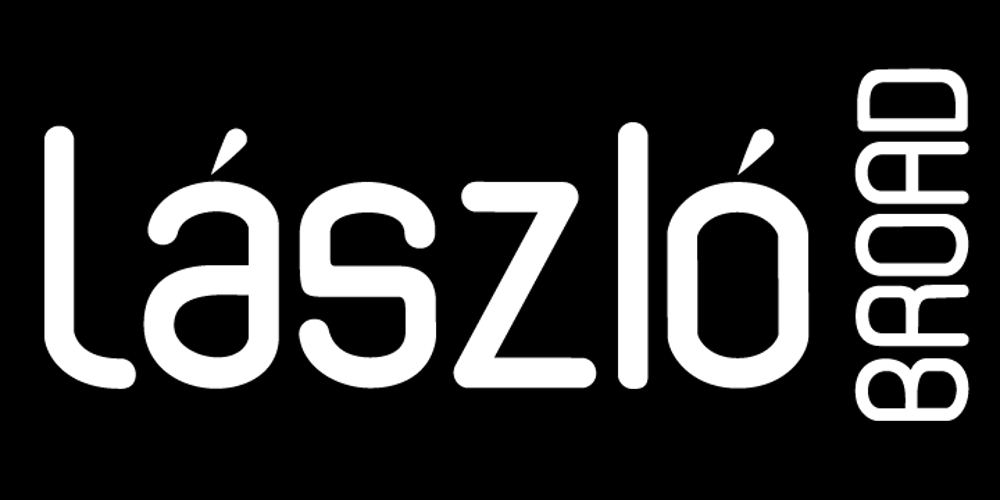
László Font Family was designed by Randy Harris and published by Just My Type. László contains 5 styles and family package options. We count three inspirations for the László font family. The upper case was inspired by Yomar Augusto’s amazing font Unity, used on last year’s German World Cup Team jerseys; the lower case from a few letters a poster for a Bauhaus show. The name László is an homage to László Moholy-Nagy, peerless Bauhaus designer and teacher. The László type family is stripped down to the typographic core, lean, clean and definitely machined, at home in either a formal or casual setting, i.e. you can take László anywhere. Inspired by watching the World Cup and the German Team’s jerseys. Very clean, simple, Bauhaus-style design, European and highly legible. Usage recommendations Automobile ads, anywhere a European feel is desired.